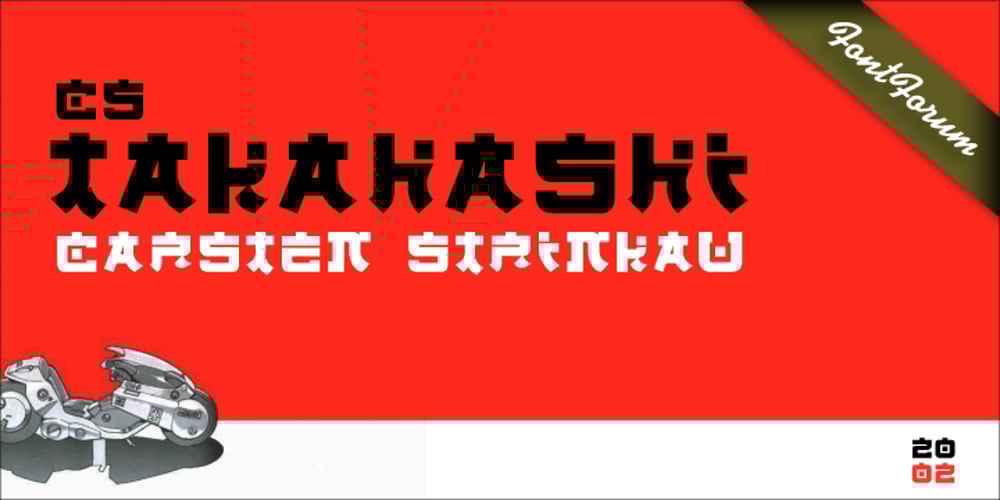
CS Takahashi
CS Takahashi font
CS Takahashi Font Family was designed by Carsten Strinkau and published by URW Type Foundry. CS Takahashi contains 1 styles and family package options. CS are the initials of Carsten Strinkau, a young German graphic and type designer who studied in Hamburg. CS Takashi is a hommage to the Japanese Manga artist Katsuhiro Otomo and his character/figure Takashi from the Akira-Manga. Takashi appears like Japanese kanji but looking more closely, you will read the Latin alphabet.